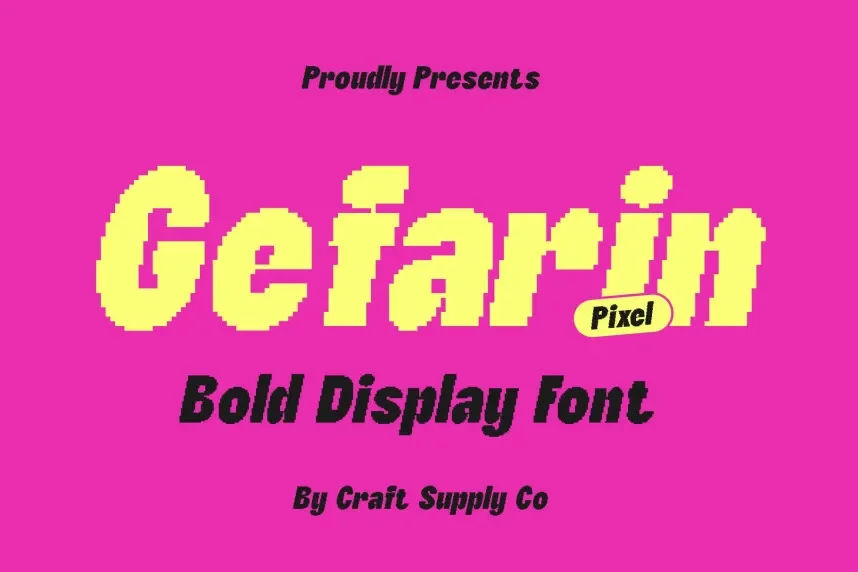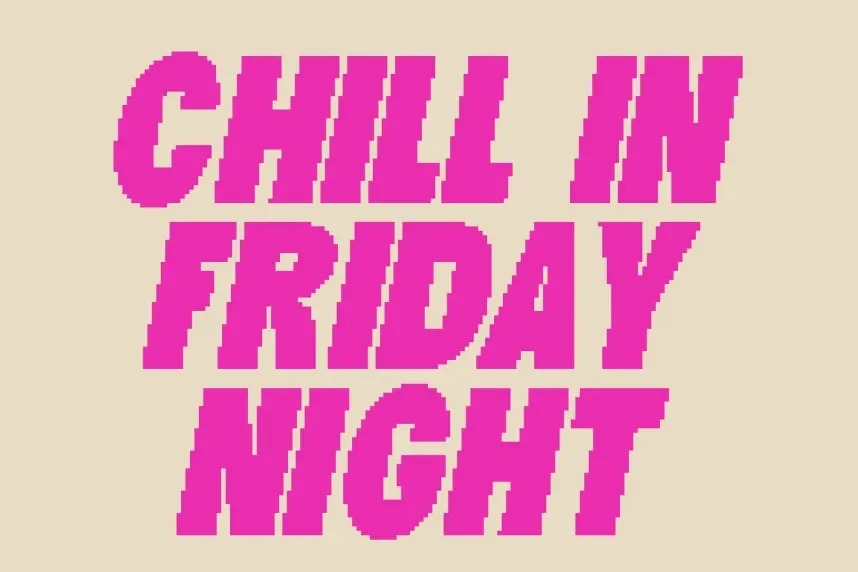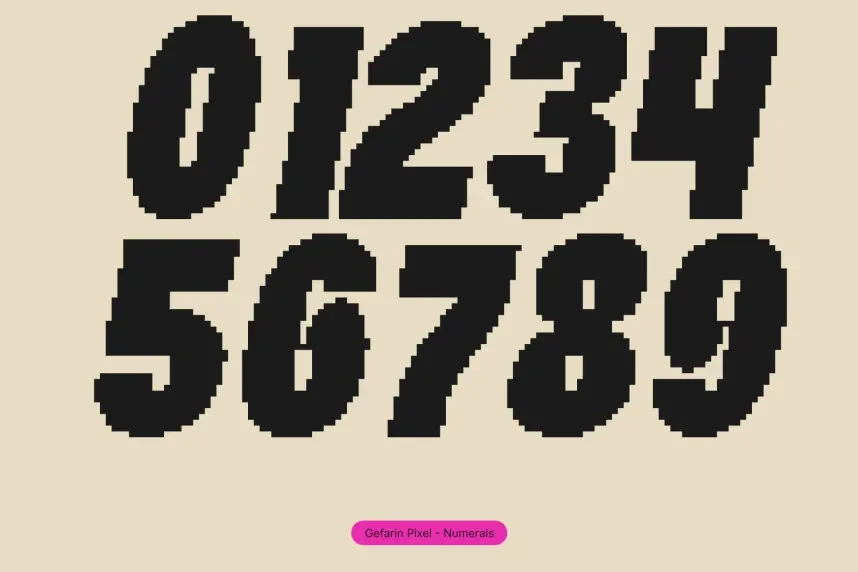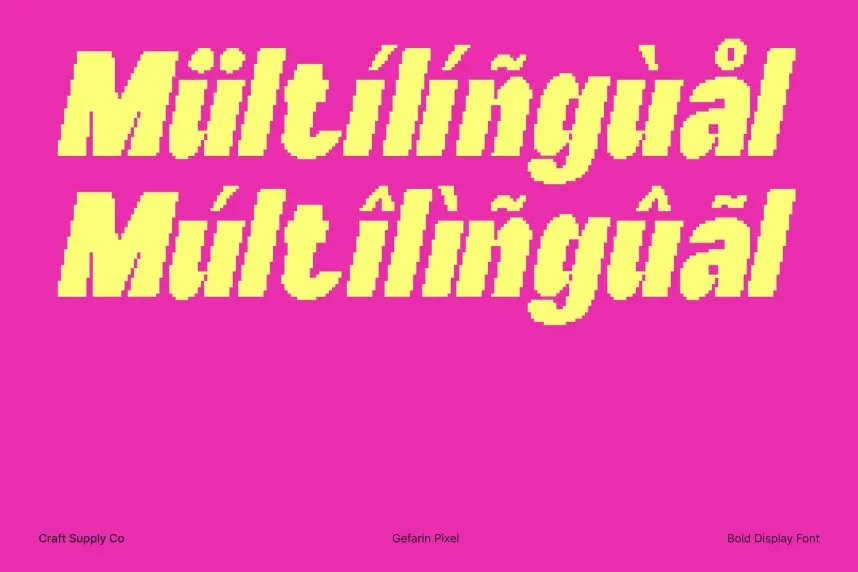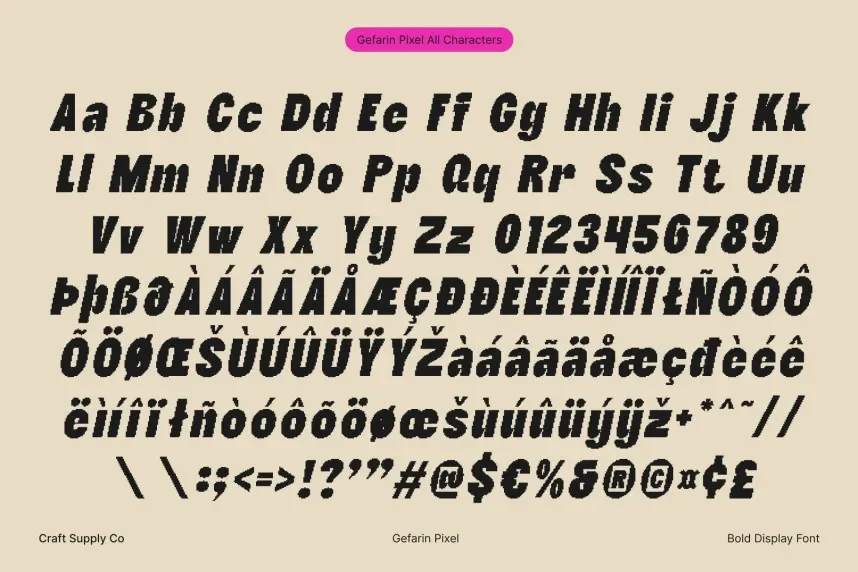
Gefarin Pixel Font features a bold pixelated design with distinct angles and clear structure. Ideal for projects that require a digital, gaming-inspired feel, this font works well in tech branding, game interfaces, and web design.